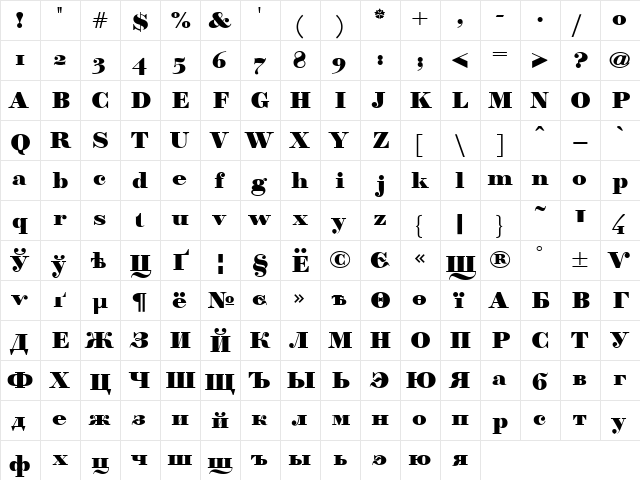
ParagonNordUltraBoldCTT Regular
Design Context for ParagonNordUltraBoldCTT Typeface
ParagonNordUltraBoldCTT offers clean, dependable letterforms without strong stylistic allegiance, making it a practical choice for designers who need flexibility. The heavy weight commands attention and anchors typographic hierarchies.